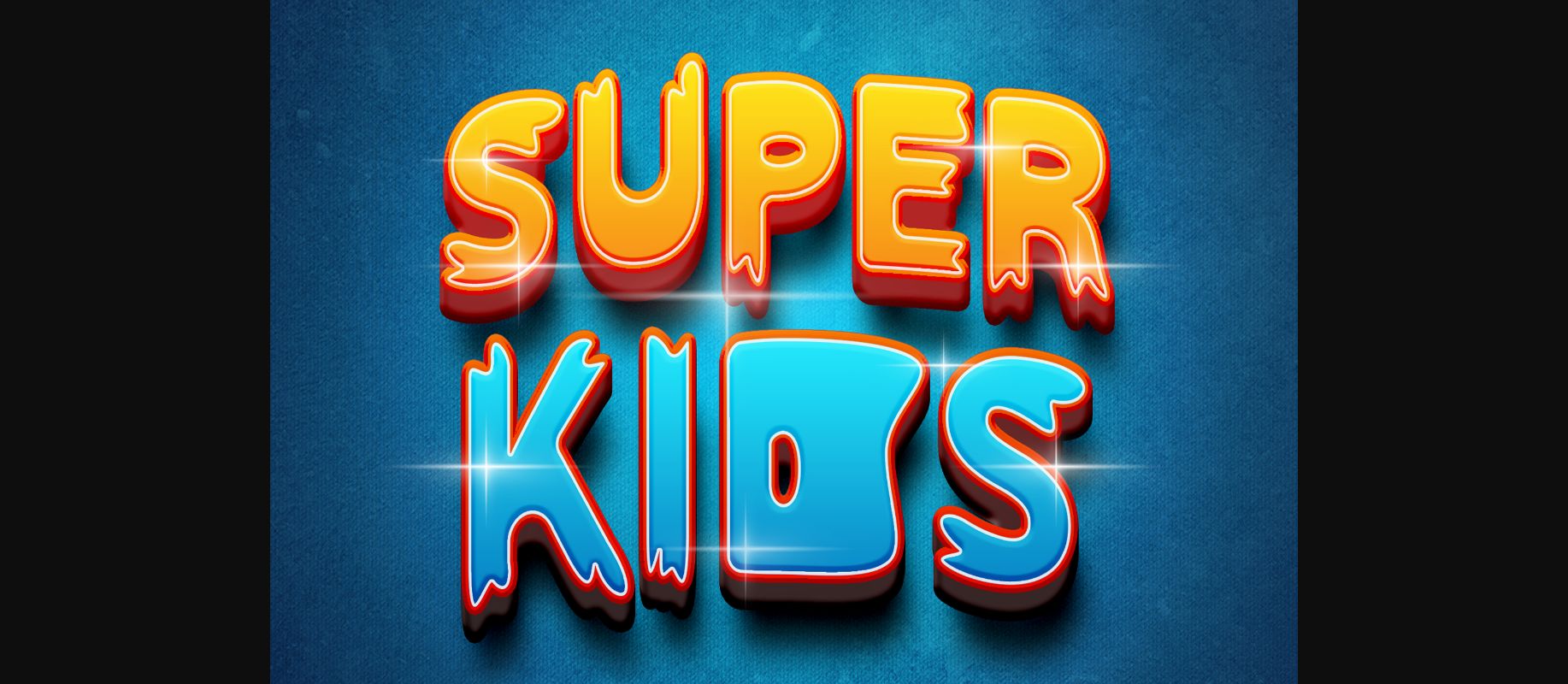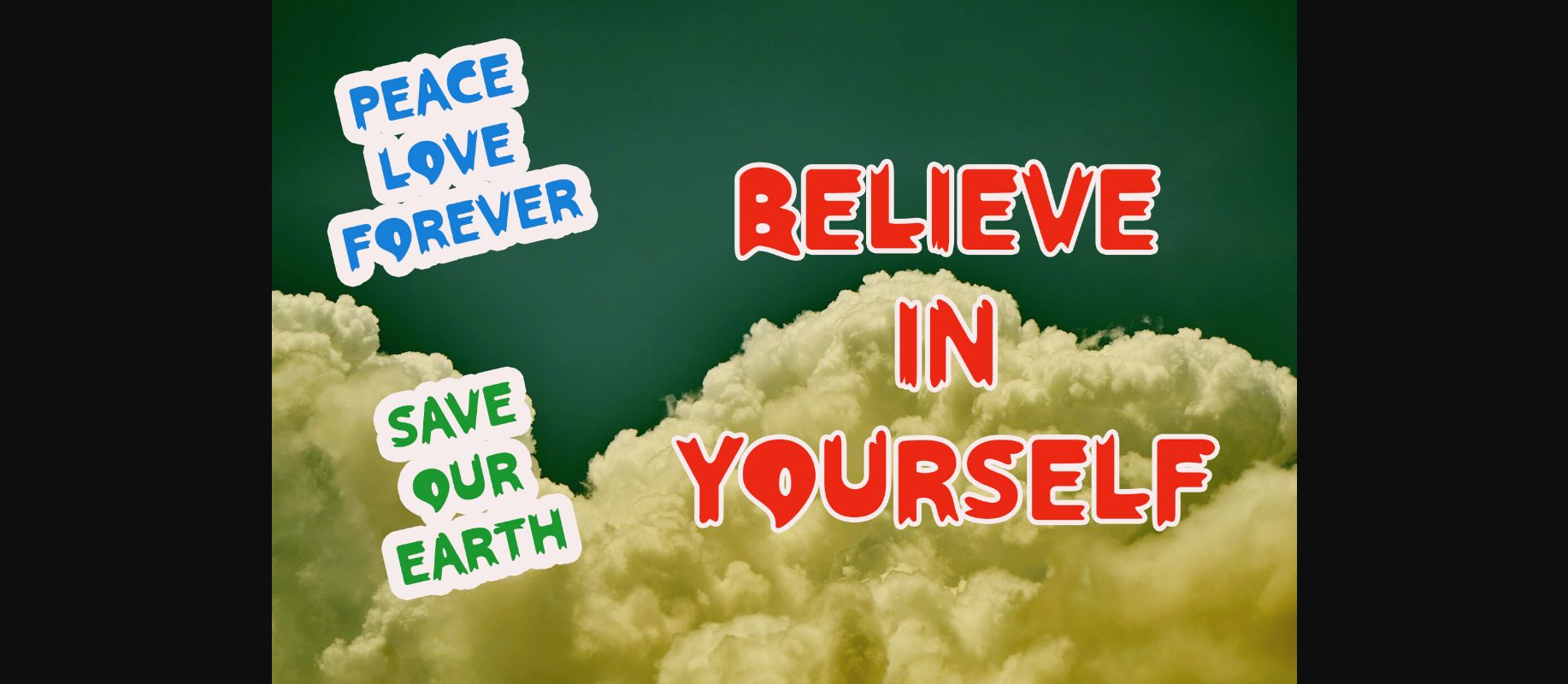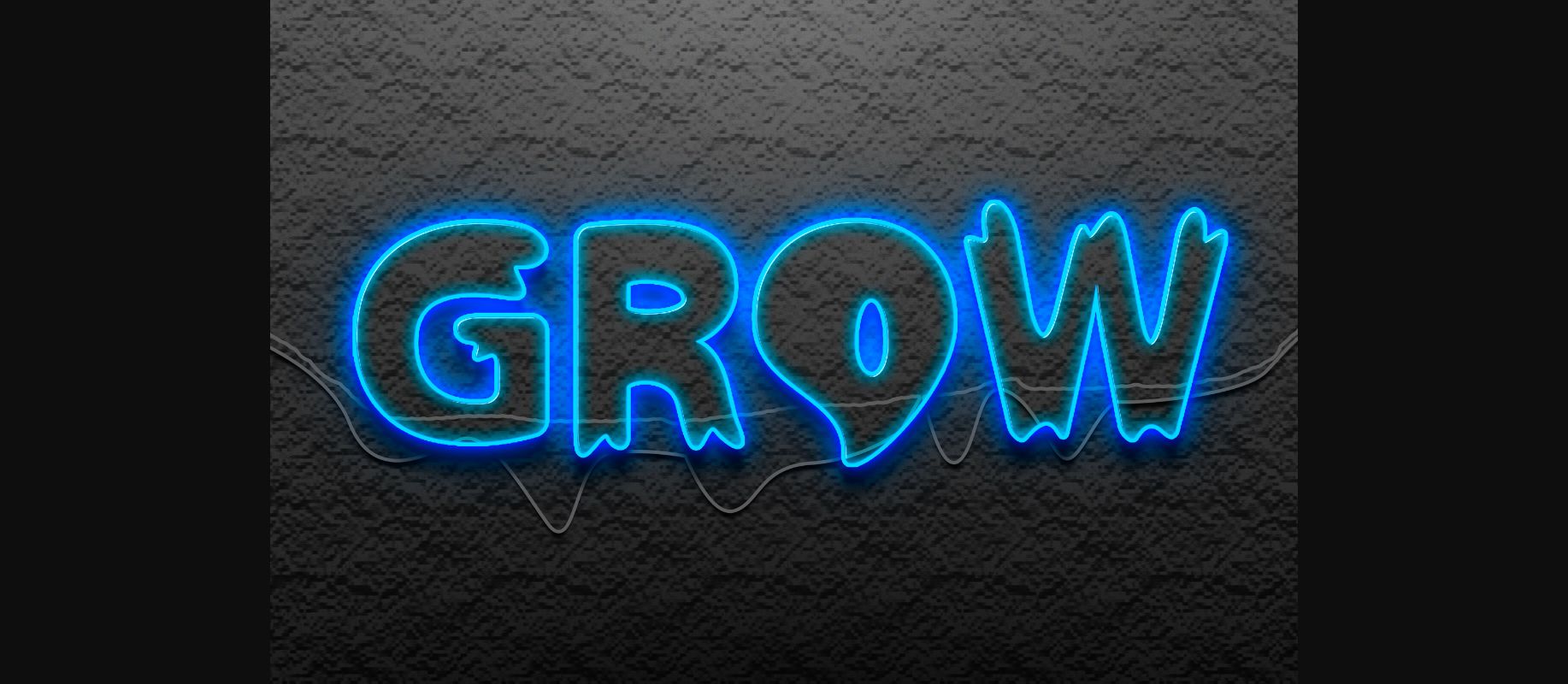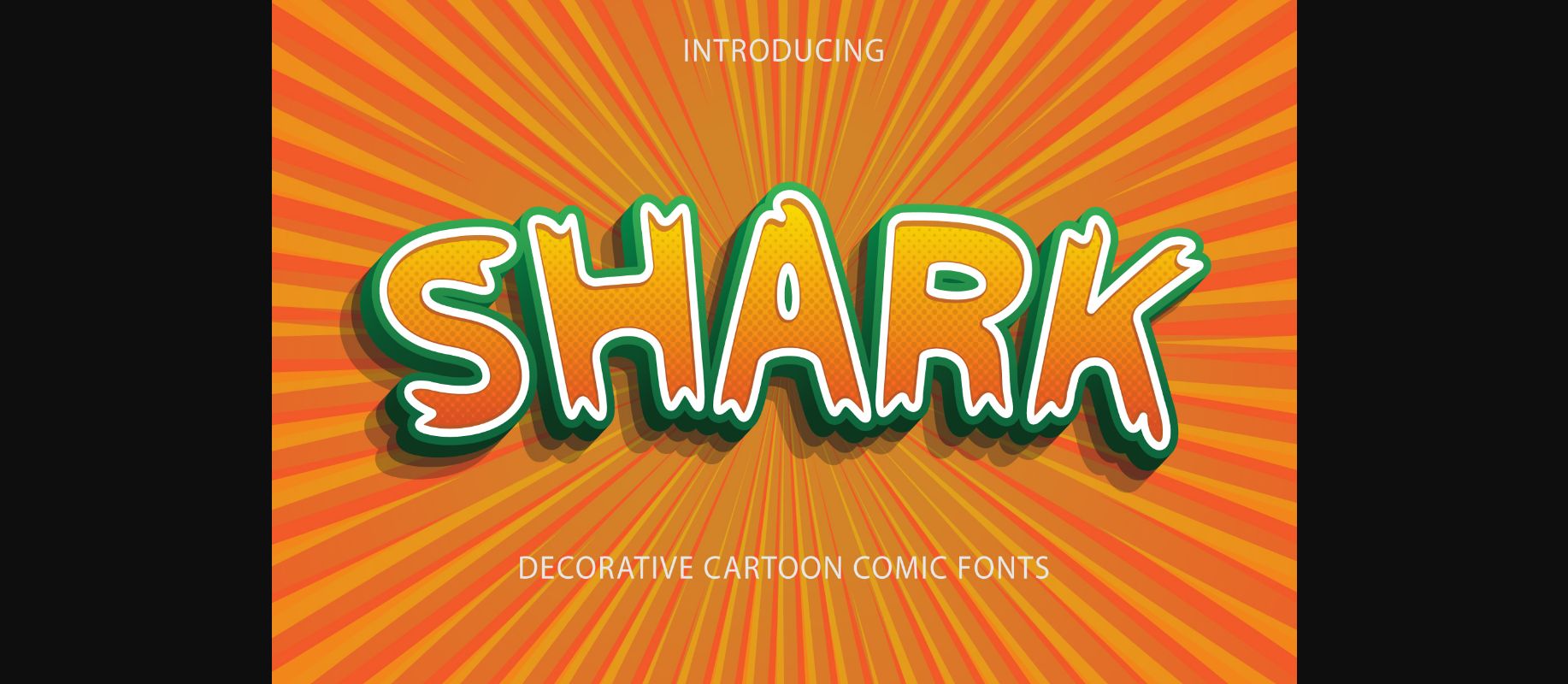
Shark Font
About Shark Font
Shark is a shark decoration font. This font has a playful, playful feel. Suitable for movie titles, cartoons, comics, t-shirts, news titles, headlines, posters, company names, logo names, advertising, entertainment, TV stations, YouTube thumbnails, Instagram stories, social media posts, and other design needs.